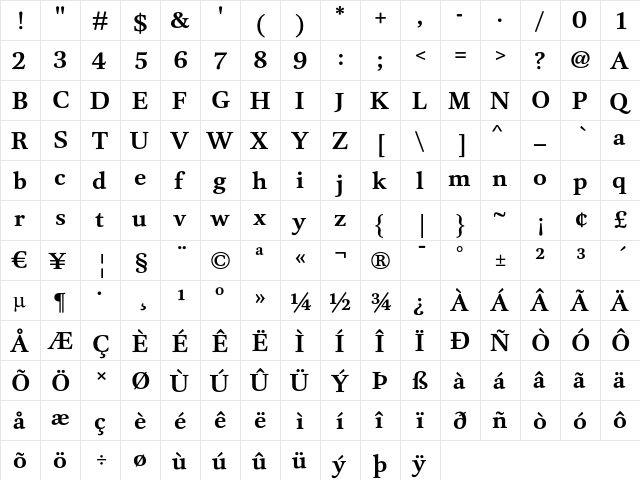
DTLUnicoT Bold
| Foundry | Dutch Type Library |
| Designer | Michael Harvey |
Design Context for DTLUnicoT Typeface
DTLUnicoT offers clean, dependable letterforms without strong stylistic allegiance, making it a practical choice for designers who need flexibility. Its bold stroke weight gives it real presence on the page.